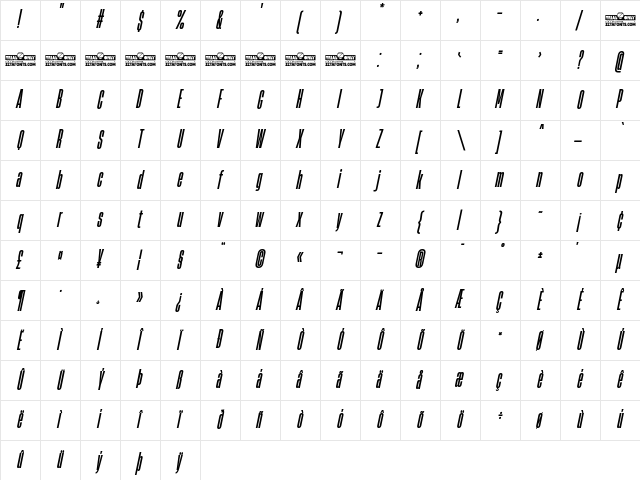
Complete HeadingNow Trial 16 Bold Italic glyph index. Displaying only characters natively supported by HeadingNow Trial 16 Bold Italic font.
HeadingNow Trial is a composed and adaptable typeface that performs quietly and consistently across a wide range of design contexts. The slanted form adds forward momentum and visual energy. Its bold stroke weight gives it real presence on the page.